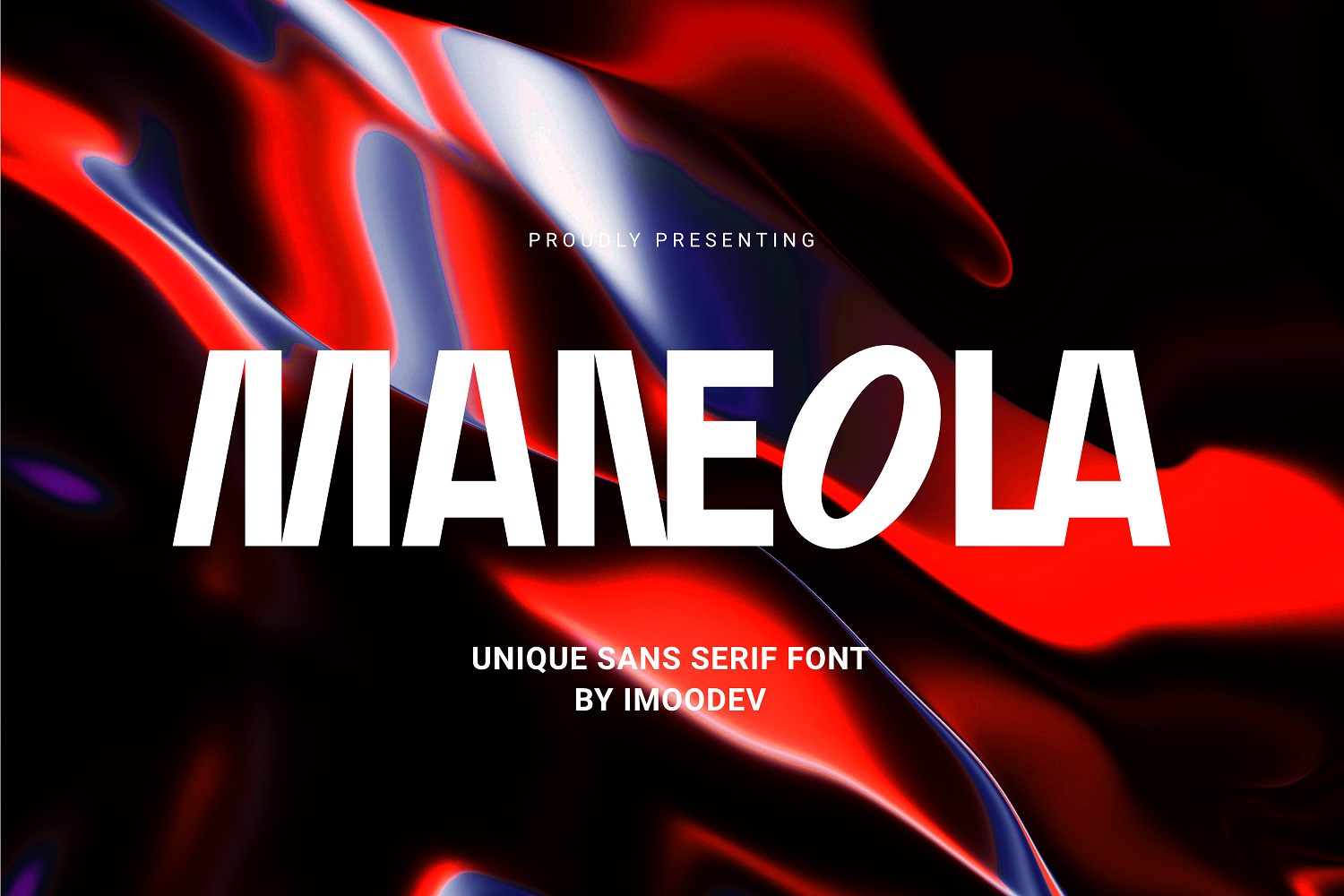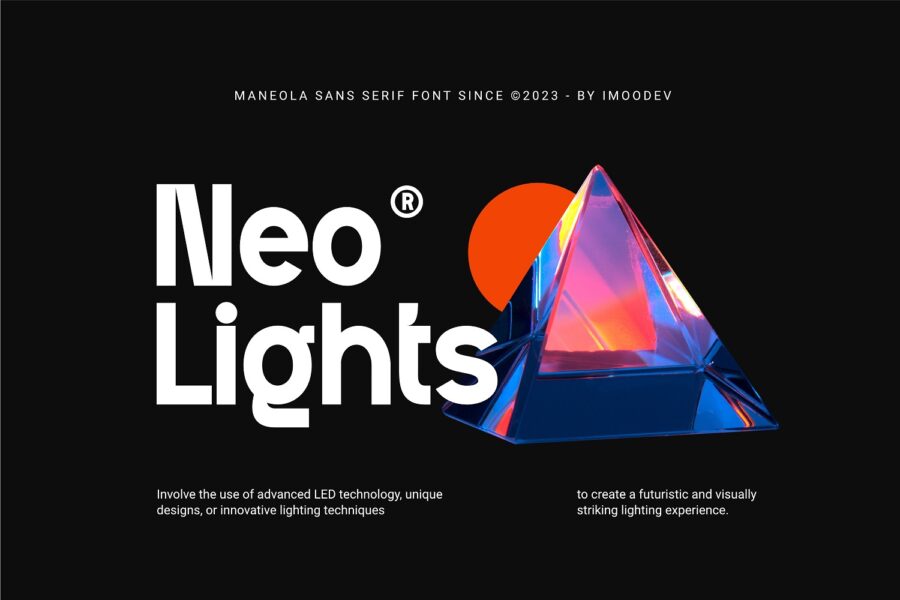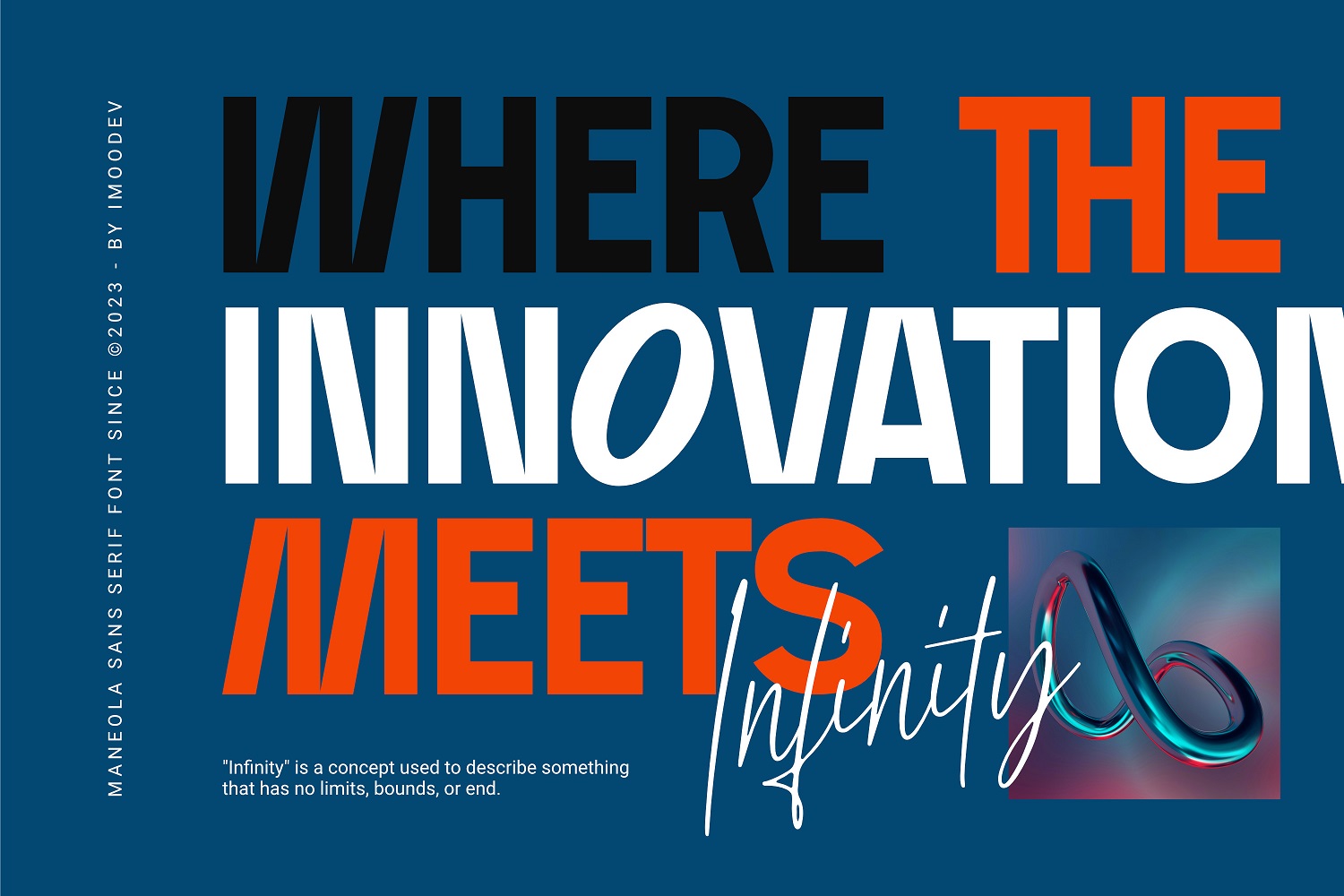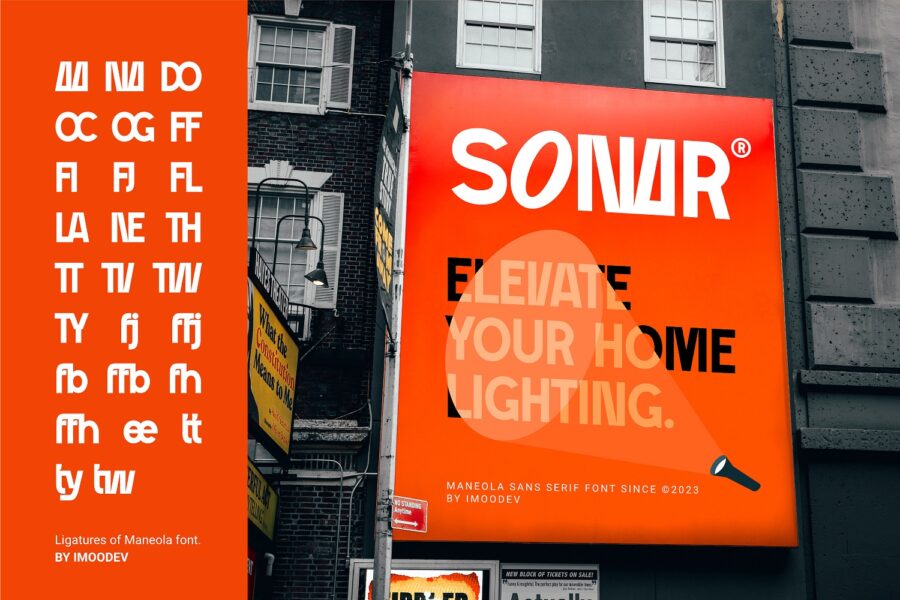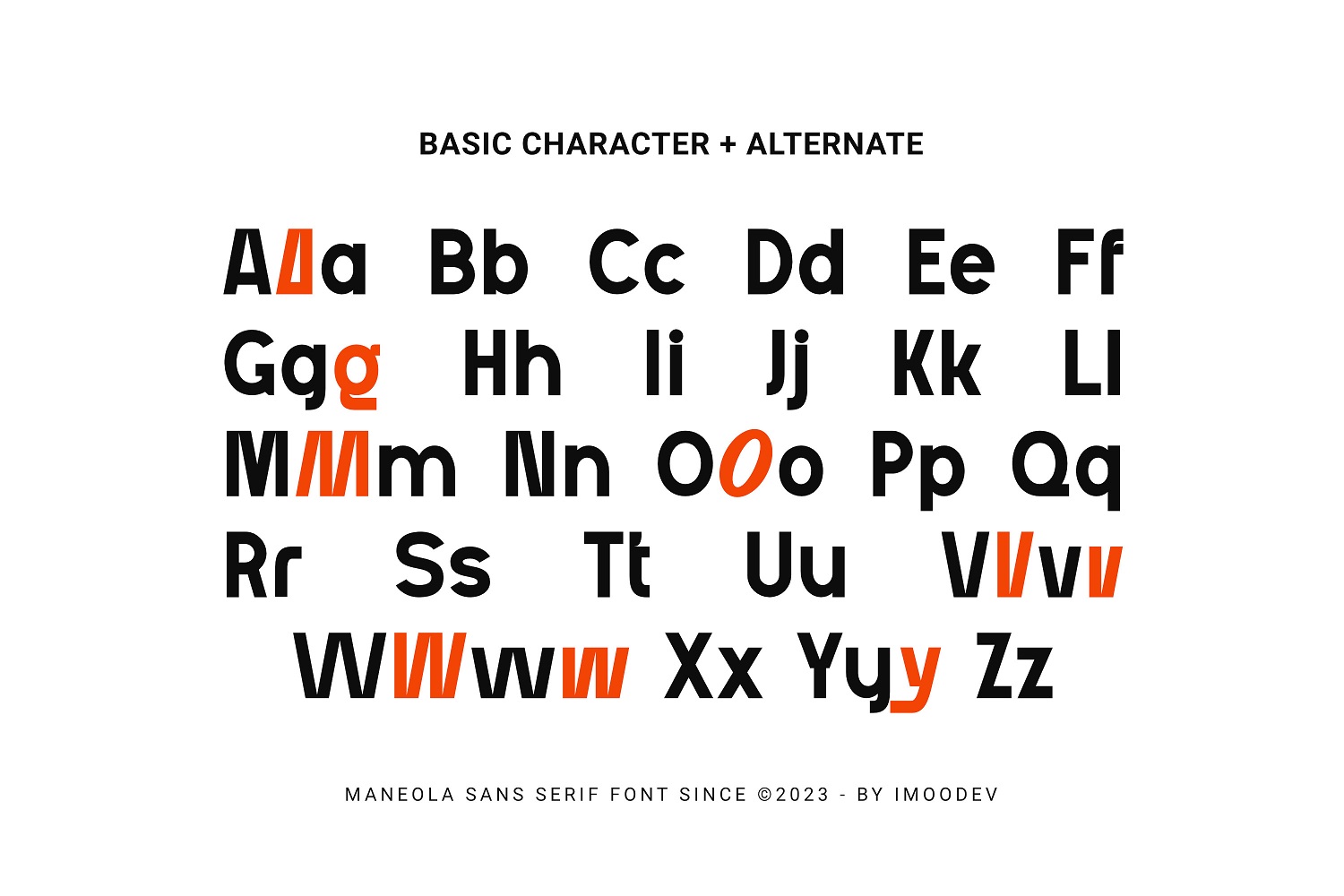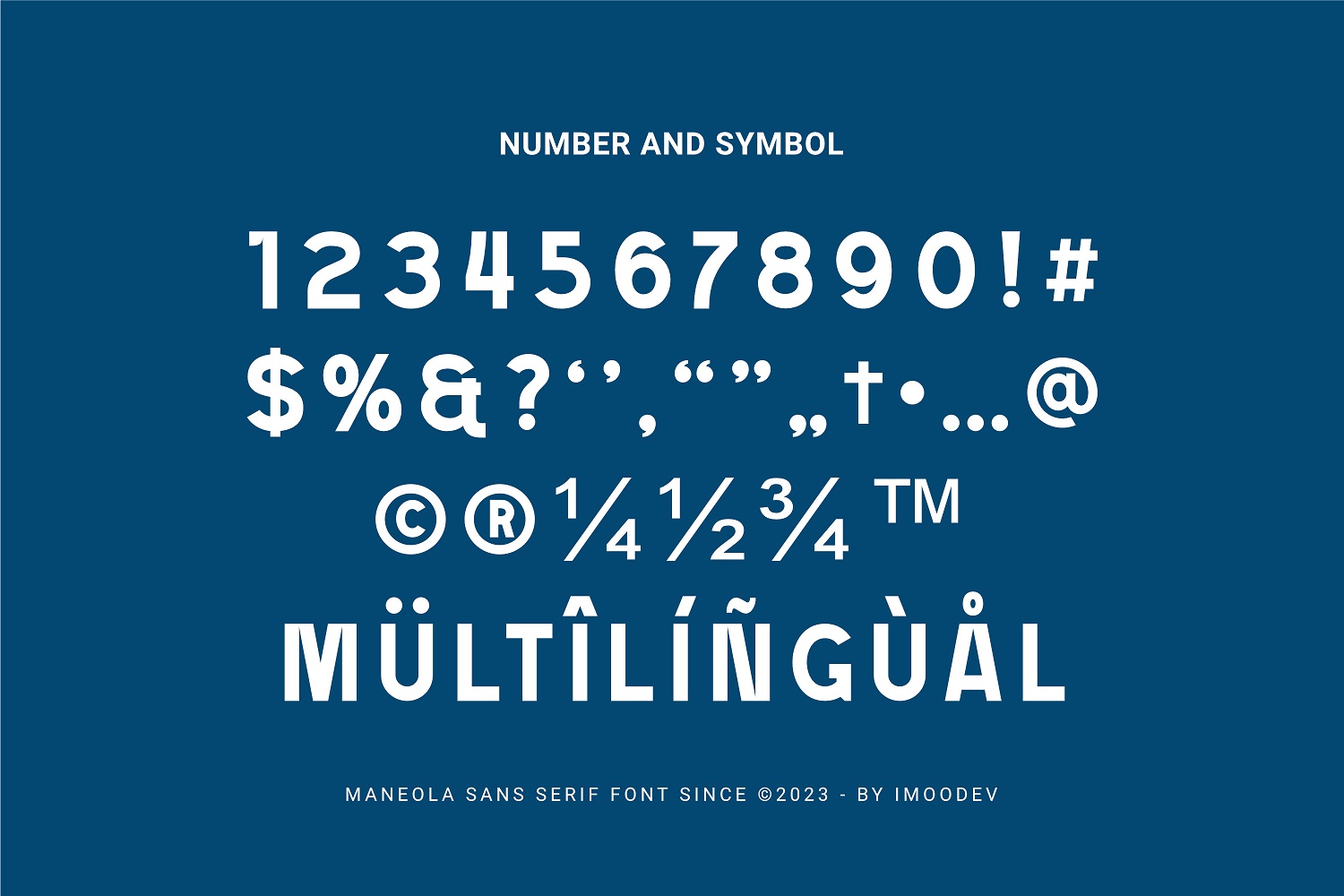
Maneola is a unique sans serif font that combines bold modern aesthetics with innovative letterforms. Its striking alternates and creative ligatures give every text a distinctive edge, making it perfect for branding, posters, packaging, and futuristic design projects. With its clean geometry and sharp presence, Maneola creates a strong visual impact that is both stylish and memorable.
Supporting multilingual characters and versatile applications, Maneola adapts seamlessly across various creative needs. Whether for advertising, fashion, technology branding, or editorial layouts, this font delivers a confident and forward-looking identity that stands out in any design space.
Maneola